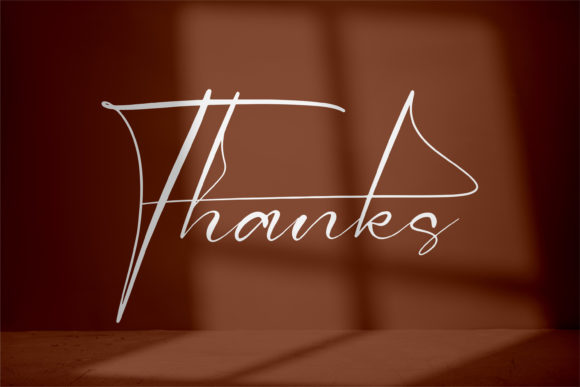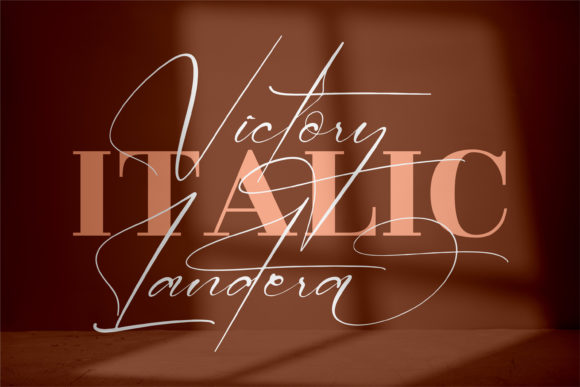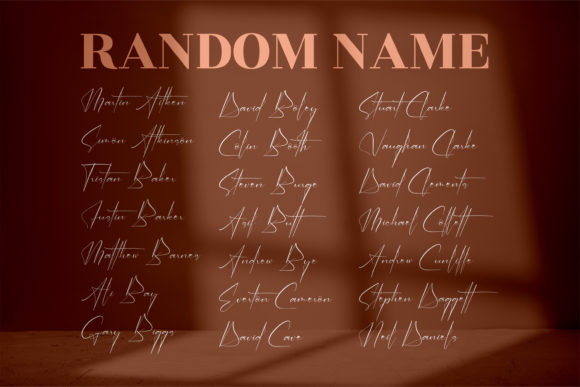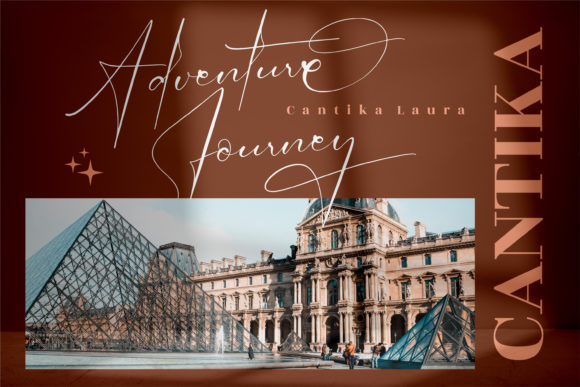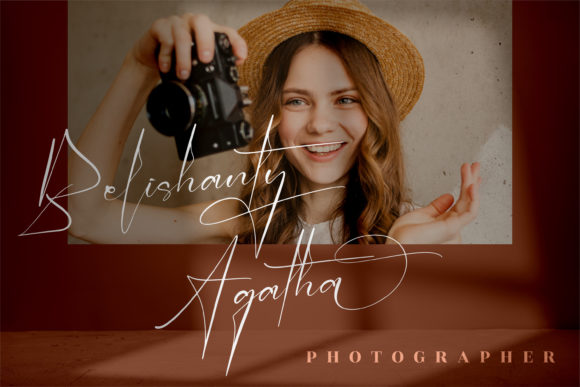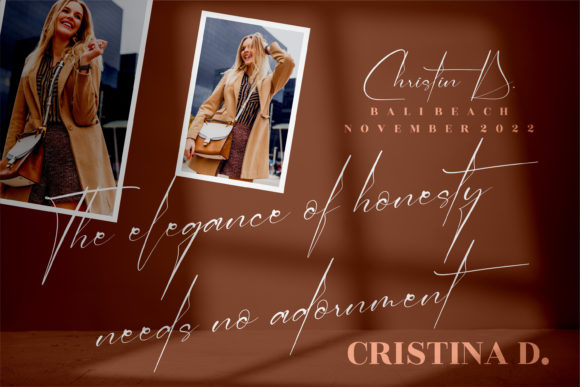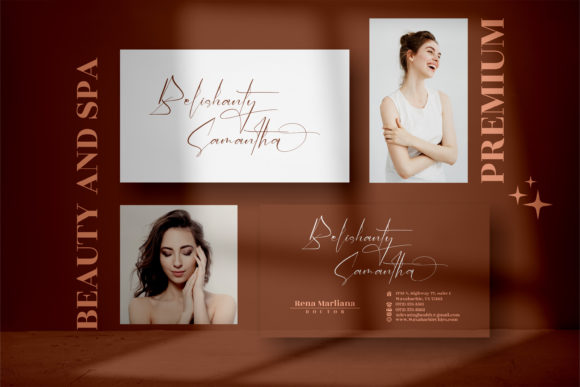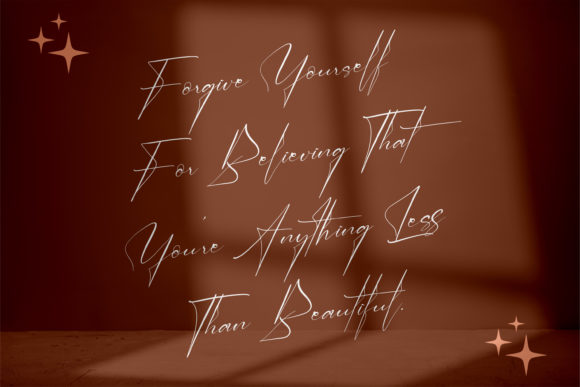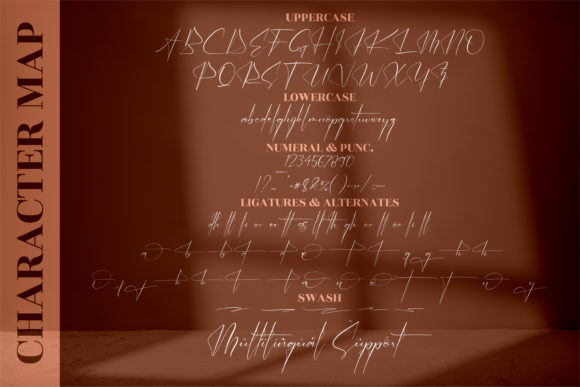
Victory Landera Font
About Victory Landera Font
Victory Landera is a lovely and delicate script font that exudes elegance and class. This font was particularly crafted for those who need a beautiful and refreshing look to their designs. Victory Landera is PUA encoded which means you can access all glyphs and swashes with ease!